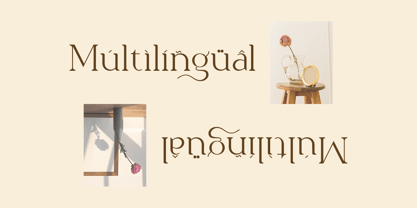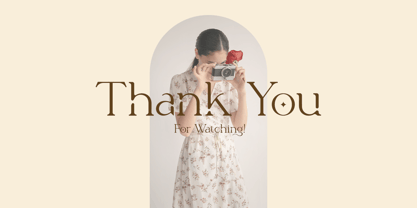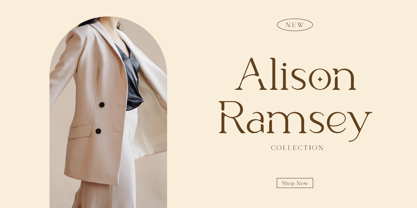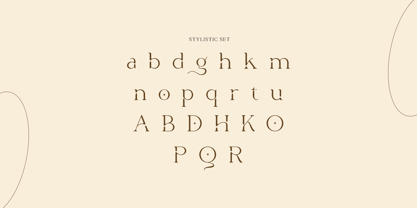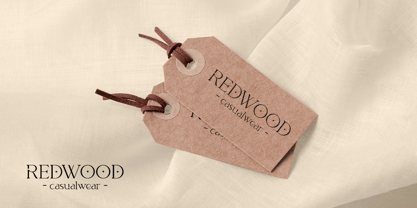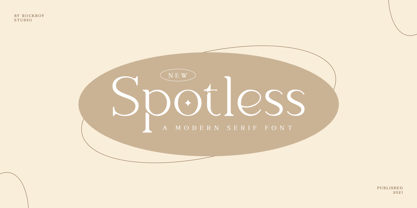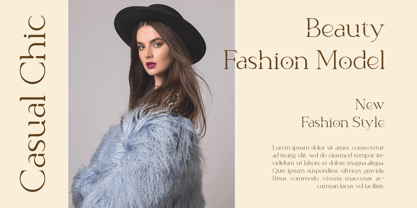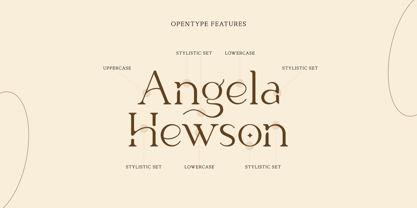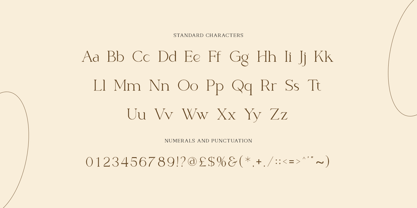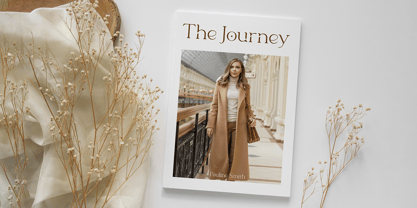
Spotless
A família de fontes Spotless foi desenhada por Hayinah e publicada pela Rockboys Studio. Spotless contém 1 estilos.
Spotless is an elegant, thin lettered and distinct serif font. Suitable to a wide variety of designs due to its neat and clean style, this font has the potential to become your favorite go-to font, no matter the occasion!